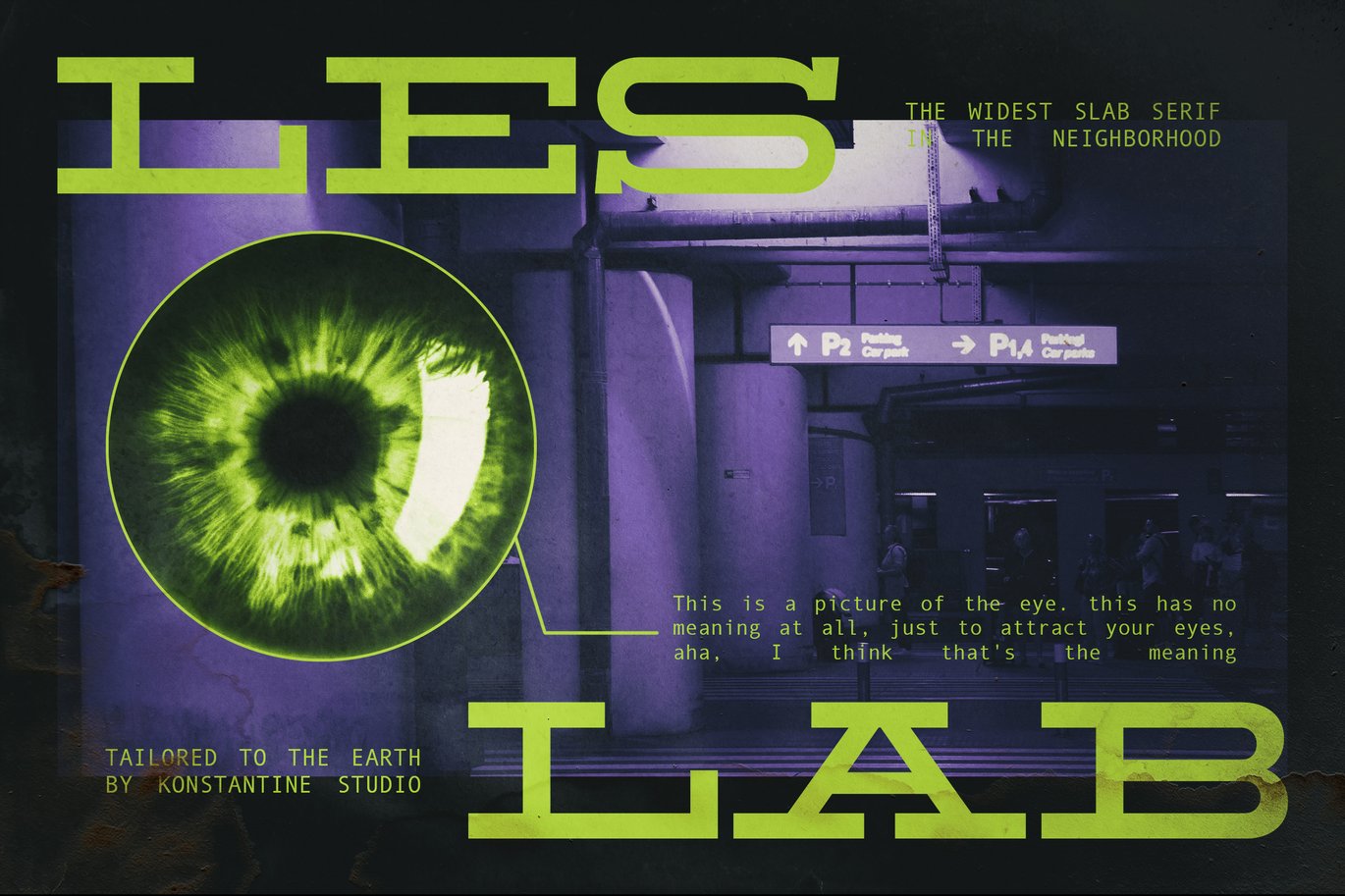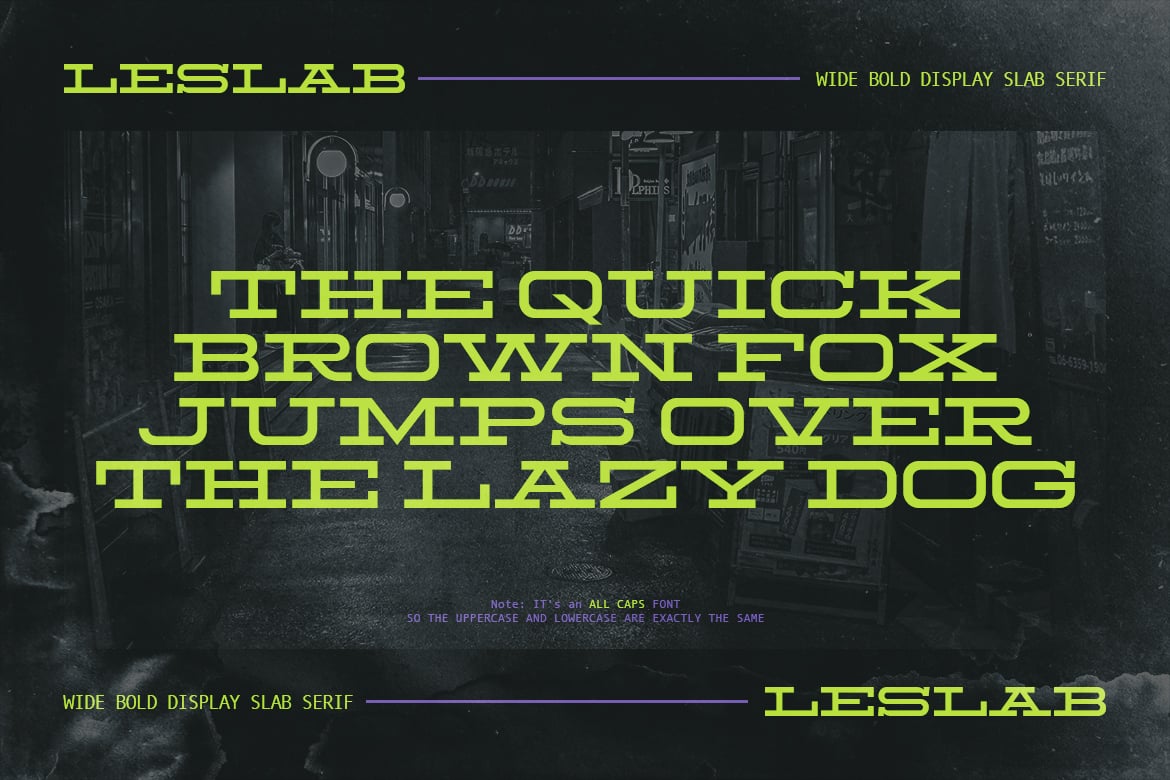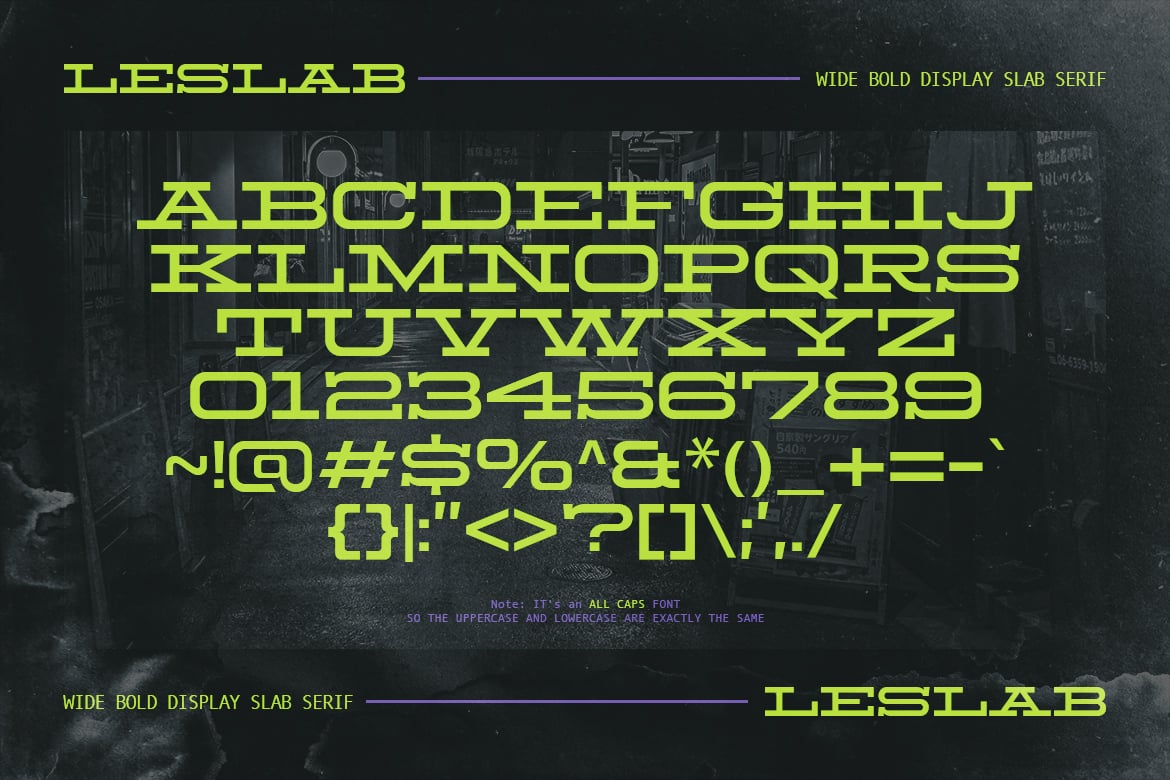
Leslab – Wide Bold Slab Serif Fonts
Introducing LESLAB, a wide and bold display slab serif that we believe you can’t take your eyes off of it. Strong presence to scream your visuals louder than you did before.
Perfectly fit for logo, branding, poster, video editing, animation, fashion, streetwear, cosmetics, men’s wear, anything.